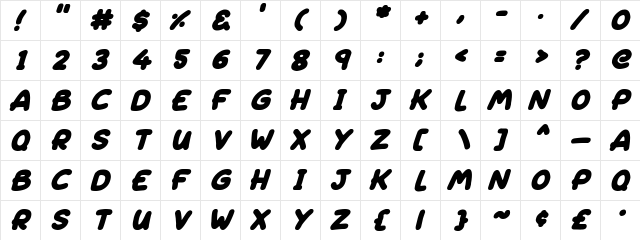
Sleeping Italic
Design Context for Sleeping Typeface
Sleeping is a composed and adaptable typeface that performs quietly and consistently across a wide range of design contexts. Its italic angle brings a sense of urgency and motion to the letterforms.
Pro Tip: Try Sleeping for annotation and caption copy alongside an upright companion — the contrast in angle creates a dynamic but ordered typographic system.